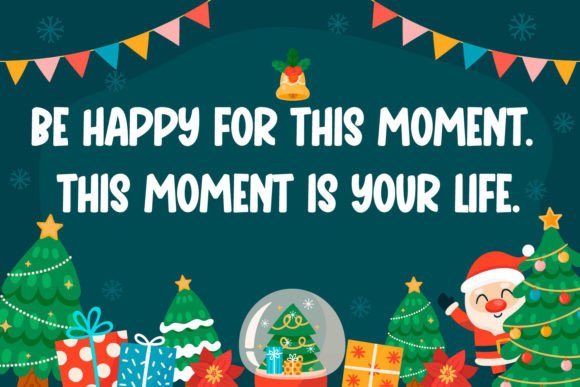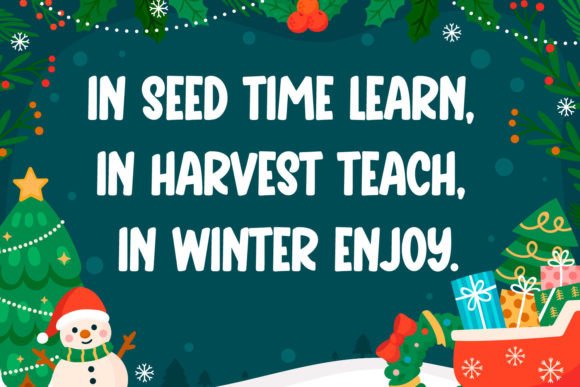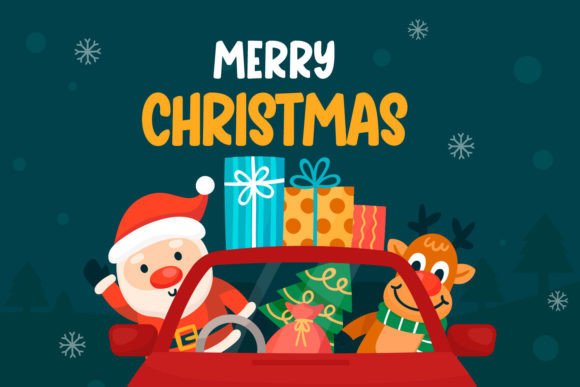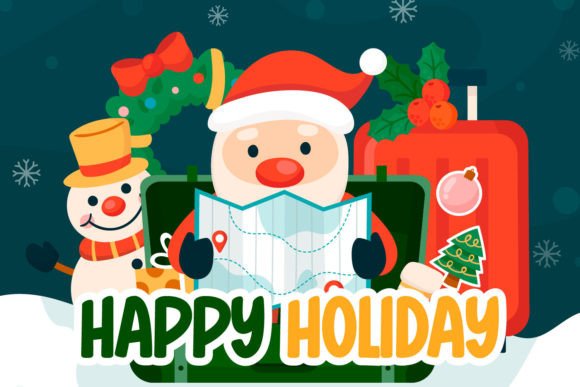
The Grinch Font: A Cute and Fresh Display Font for Your Designs
Are you looking for a font that can add a touch of fun and playfulness to your designs? Look no further than the Grinch Font! This adorable display font is perfect for creating eye-catching designs that are sure to stand out. In this article, we’ll take a closer look at the Grinch Font, its features, and how you can use it to create amazing designs.
What is the Grinch Font?
The Grinch Font is a cute and fresh display font that is suitable for use in any topic that makes them stand out. It’s a versatile font that can be used for a wide range of design projects, from children’s themed designs to festive holiday designs. The font is designed to be bold and playful, making it perfect for headlines, titles, and other display text.
Features of the Grinch Font
The Grinch Font has several features that make it a great choice for designers and crafters. Some of its key features include:
- Cute and playful design: The Grinch Font has a fun and playful design that’s sure to bring a smile to anyone’s face.
- Bold and eye-catching: The font is designed to be bold and eye-catching, making it perfect for headlines and titles.
- Versatile: The Grinch Font can be used for a wide range of design projects, from children’s themed designs to festive holiday designs.
- Easy to read: Despite its playful design, the Grinch Font is easy to read, making it perfect for use in titles and headings.
Using the Grinch Font in Your Designs
The Grinch Font is perfect for use in a wide range of design projects, including:
- Children’s themed designs: The Grinch Font is perfect for use in children’s themed designs, such as birthday cards, party invitations, and children’s book titles.
- Festive holiday designs: The font is also great for use in festive holiday designs, such as Christmas cards, Halloween party invitations, and Easter egg hunt posters.
- Social media graphics: The Grinch Font can be used to create eye-catching social media graphics, such as Facebook posts, Instagram stories, and Twitter headers.
- Signs and posters: The font can also be used to create eye-catching signs and posters, such as movie posters, event posters, and sale signs.
Tips for Using the Grinch Font
Here are some tips for using the Grinch Font in your designs:
- Use bright colors: The Grinch Font looks great when paired with bright colors, so don’t be afraid to get creative with your color palette.
- Experiment with different sizes: The font looks great in a variety of sizes, so experiment with different sizes to find the one that works best for your design.
- Combine with other fonts: The Grinch Font can be combined with other fonts to create a unique and interesting design.
- Use it sparingly: While the Grinch Font is fun and playful, it can be overwhelming if used too much. Use it sparingly to create a bold and eye-catching design.
The Grinch Font is a cute and fresh display font that’s perfect for use in a wide range of design projects. Its playful design and bold, eye-catching style make it perfect for headlines, titles, and other display text. With its versatility and ease of use, the Grinch Font is a great choice for designers and crafters who want to add a touch of fun and playfulness to their designs.